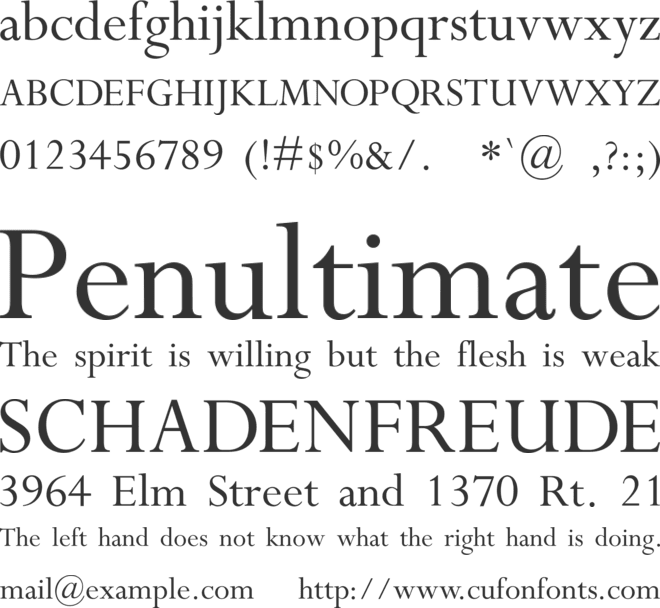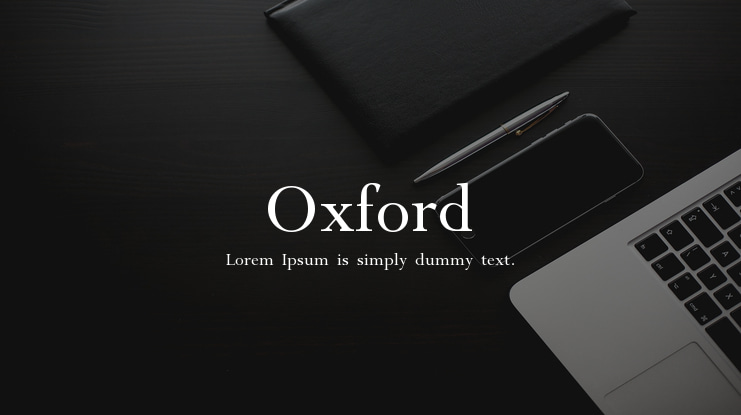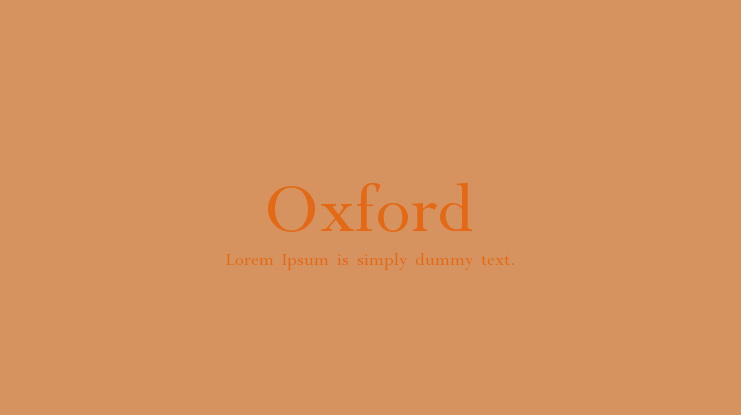
Oxford Font
OXFORD' is a high quality font containing full hinting for correct rendering
at small point sizes and a total of 471 kerning pairs for correct character
author. The font is suitable for both headlines and body text, and should
render well down to 6 point. It is based on a printed specimen of hot metal
type of 'Perpetua Series 239' supplied by the Mouldtype Foundry. The font
contains a full range of upper and lower case letters together with the figures
0 to 9 and a full range of punctuation. There are however no diacritics. It
was hand traced in order to achieve a high quality outline and compiled using
Type Designer 3.1. This font represents aproximately 1000 manhours of
work.